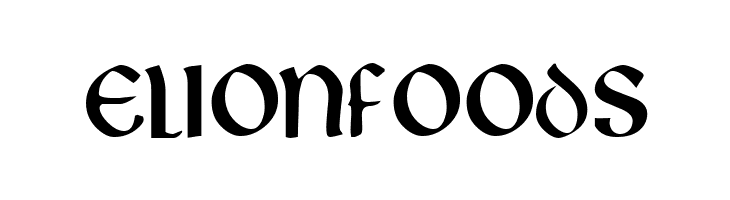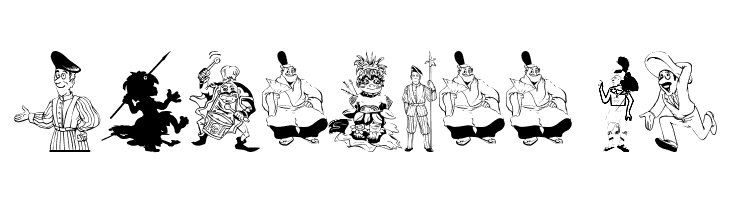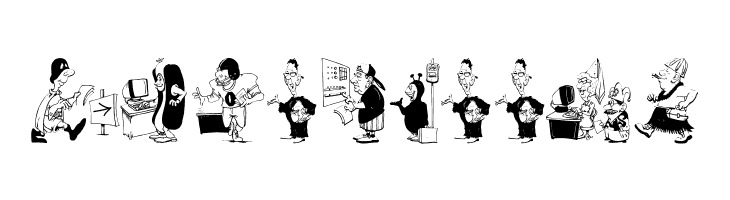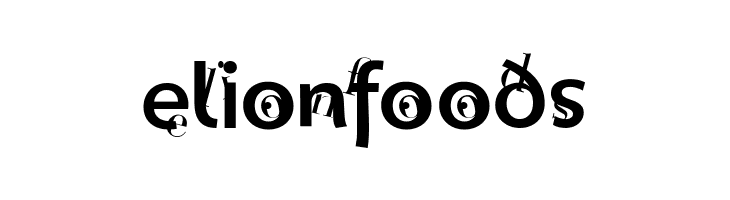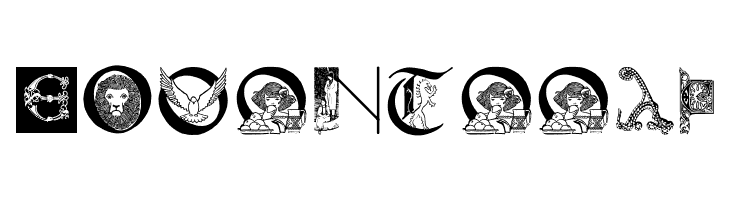
• LettersBats
An ornate and decorative font with intricate illustrations in each letter.
• Lettersoup
A playful and chaotic font with bold, eclectic characters.
• LettersSnakesAndMore
A whimsical, illustrated font with each letter embedded in unique artwork.
• LeuteHeute
Cartoonish, illustrated font with each letter as a unique character.
• Libra
( Roger White - web.archive.org/web/20120416090521/www.rogersfonts.org.uk/ )
A bold, calligraphic font with sharp, angular strokes and a traditional flair.
• LifeEyecons
A bold, surreal icon-based decorative font with eye and anatomical motifs.
• LifeIcons
A modern, decorative icon font with bold and outlined life-inspired symbols.
• LifeIsACabaret
A playful, illustrated display font made of theatrical character drawings.
• LifeIsAMovie
Cartoonish, movie-themed illustrated display font.
• Lifestyle
Whimsical cartoon character font with a playful, illustrated style.